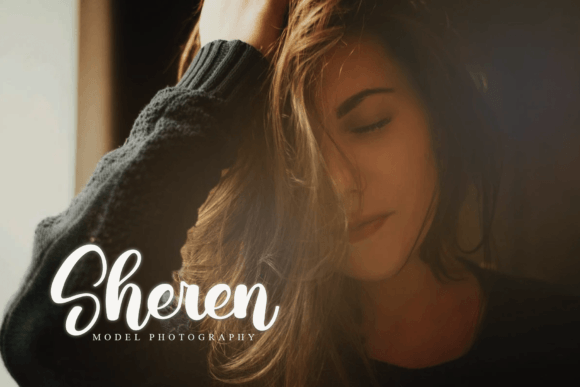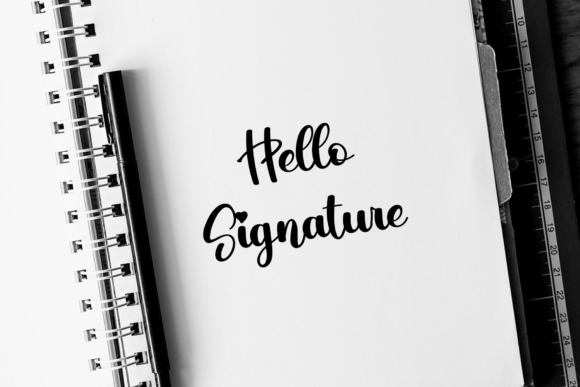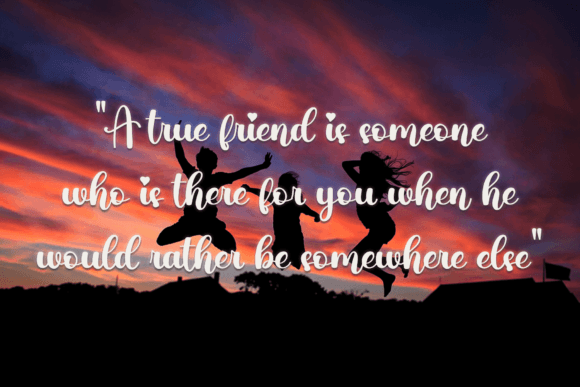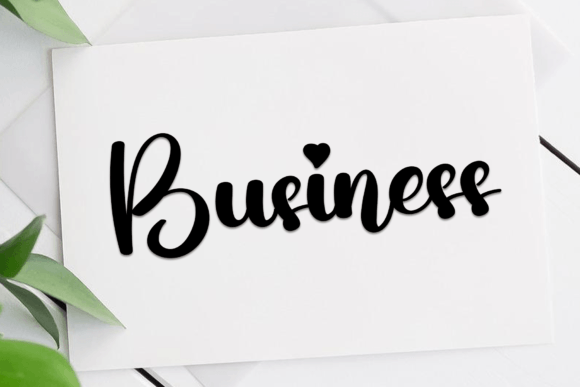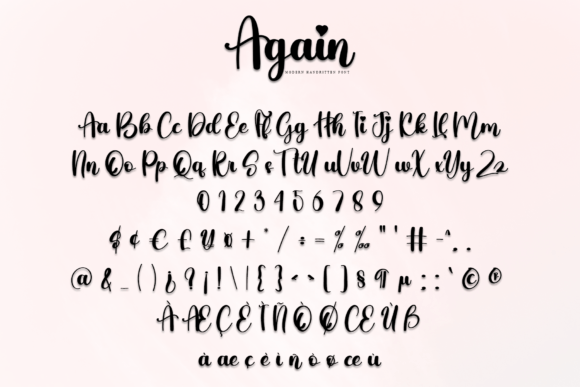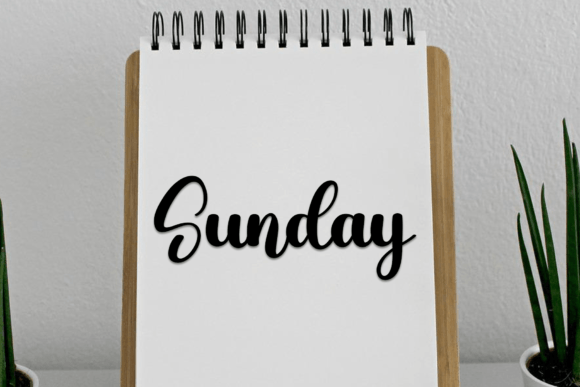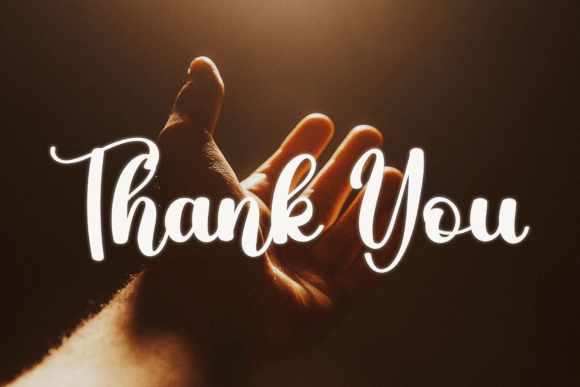
Again Font
“Again Font: Uniquely Crafted Handwritten Elegance
Introducing Again, a unique and round lettered handwritten font meticulously crafted to deliver exceptional results. This font is designed with precision to add a distinctive touch to your creative projects. Its versatility makes it suitable for writing titles, invitations, letters, and various other types of products, bringing an element of elegance to your designs.
Again is more than just a font; it’s a design asset that adds a unique and handwritten elegance to your projects. The round lettering style gives it a distinctive character that stands out.
The uniqueness of Again shines through in its ability to create visually appealing titles and text. Whether you’re working on invitations or letters, Again adapts effortlessly to enhance the aesthetics of your designs.
For titles and headers, Again becomes a standout choice, adding a touch of uniqueness to your text. The font’s round lettering style contributes to a visually pleasing and memorable design.
In invitations and personalized products, Again serves as a distinctive element, creating a visual impact with its handwritten elegance. Its carefully crafted design adds a touch of sophistication to your creative endeavors.
Again’s versatility extends to various design applications, making it suitable for a wide range of creative projects. The font’s unique character enhances the overall aesthetics, creating a visually pleasing and memorable experience.
In conclusion, Again is more than just a font; it’s a design companion that brings uniquely crafted handwritten elegance to your creative toolkit. Let Again be the brushstroke that adds a distinctive touch to the beauty of your projects. Embrace the uniqueness of Again, and watch as it transforms your ideas into visually enchanting and memorable experiences.”